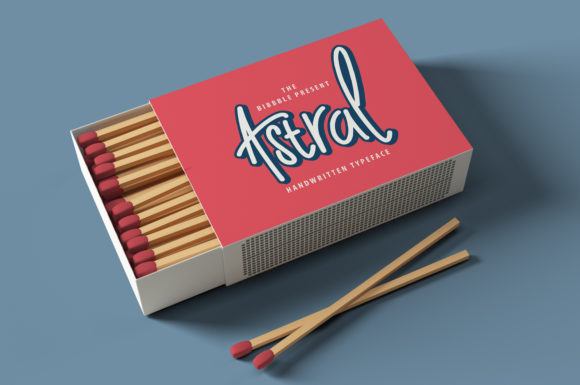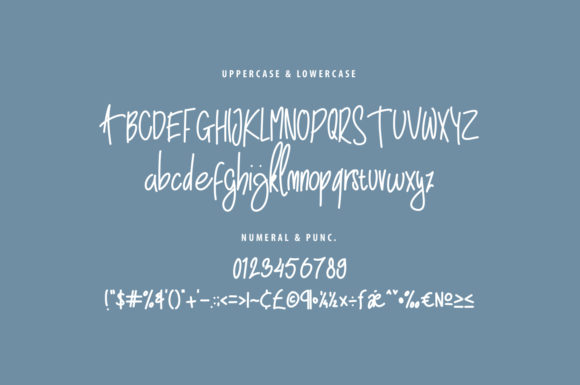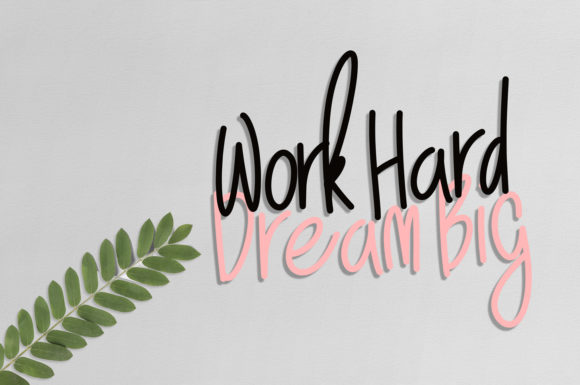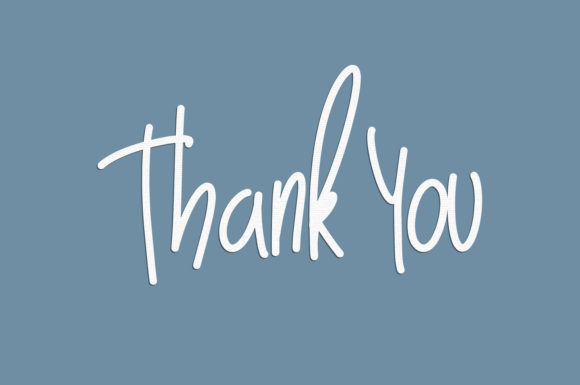
Astral Font: Elevate Your Designs with a Modern Script Font
Astral is a modern script font that has taken the design world by storm. With its carefully crafted letters, Astral font can make any text look beautiful, charming, and original. In this article, we’ll dive into the world of Astral font, exploring its features, benefits, and uses, making it a must-read for designers and crafters.
What is Astral Font?
Astral font is a modern script font designed to add a touch of elegance and sophistication to any design project. Every single letter has been meticulously crafted to ensure that the text looks beautiful, charming, and original. The font’s unique design makes it perfect for a wide range of applications, from wedding invitations and branding materials to packaging and digital media.
Key Features of Astral Font
- Unique Lettering: Each letter in the Astral font has been carefully designed to ensure that the text looks beautiful and elegant.
- Modern Script Style: Astral font boasts a modern script style that adds a touch of sophistication to any design project.
- High Versatility: The font is highly versatile and can be used for a wide range of applications, from print to digital media.
- Easy to Read: Despite its elegant design, Astral font is easy to read, making it perfect for body text and headings.
Benefits of Using Astral Font
Astral font offers numerous benefits to designers and crafters. Some of the most significant advantages include:
- Enhances Visual Appeal: Astral font can instantly elevate the visual appeal of any design project, making it more engaging and attractive.
- Adds Sophistication: The font’s modern script style adds a touch of sophistication and elegance to any design project.
- Saves Time: With Astral font, designers can create beautiful and elegant text without spending hours crafting each letter.
Uses of Astral Font
Astral font is highly versatile and can be used for a wide range of applications, including:
- Wedding Invitations: Astral font is perfect for wedding invitations, adding a touch of elegance and sophistication to the design.
- Branding Materials: The font can be used for branding materials, such as logos, business cards, and letterheads.
- Packaging: Astral font can add a touch of elegance to packaging designs, making products stand out on store shelves.
- Digital Media: The font can be used for digital media, including social media graphics, blog posts, and website headers.
Tips for Using Astral Font
To get the most out of Astral font, here are some tips to keep in mind:
- Use it Sparingly: Astral font is best used sparingly, as excessive use can make the text difficult to read.
- Pair it with Other Fonts: The font can be paired with other fonts to create a unique and visually appealing design.
- Experiment with Colors: Astral font can be used with a range of colors, from bold and bright to soft and pastel.
Astral font is a modern script font that can elevate any design project to new heights. With its carefully crafted letters and modern script style, Astral font is perfect for designers and crafters looking to add a touch of elegance and sophistication to their work. Whether you’re designing wedding invitations, branding materials, or packaging, Astral font is a versatile and beautiful choice.